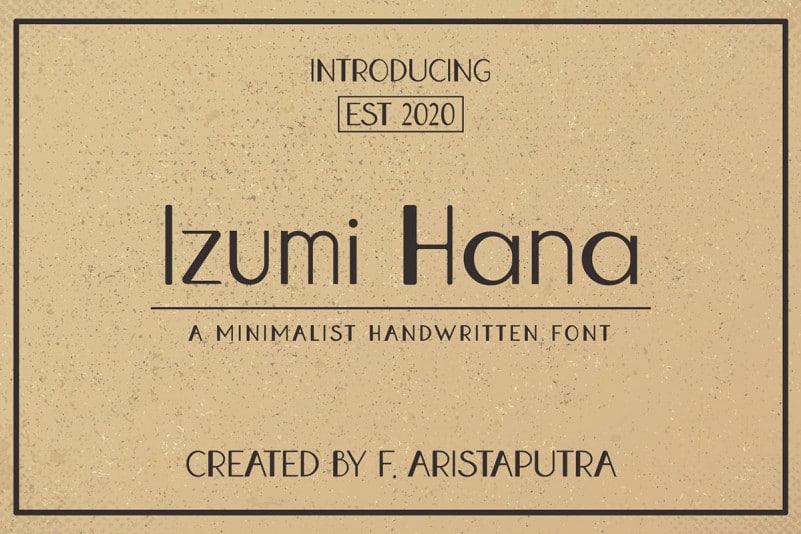
Izumi Hana – a minimal, yet elegant sans serif font. Suitable to a wide variety of designs due to its neat and simple style, Izumi Hana has the potential to become your favorite go-to font, no matter the occasion!